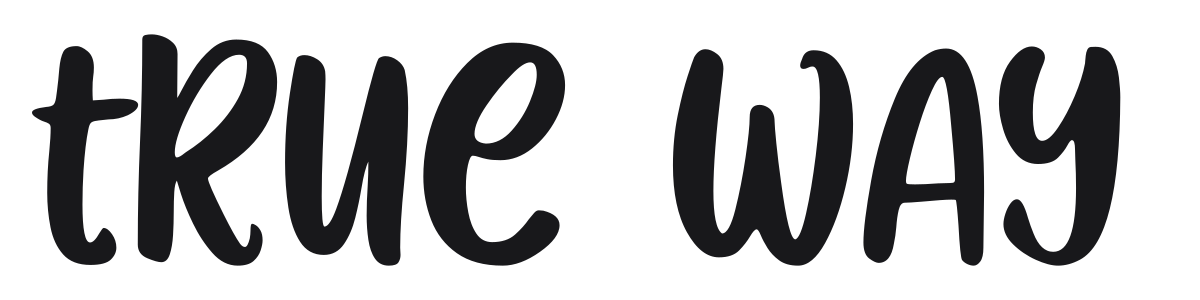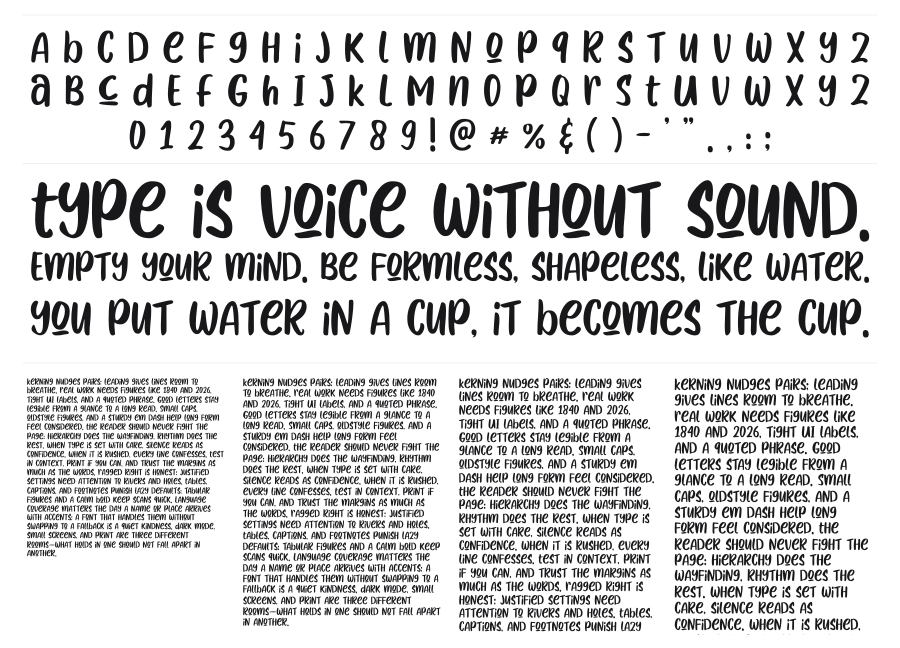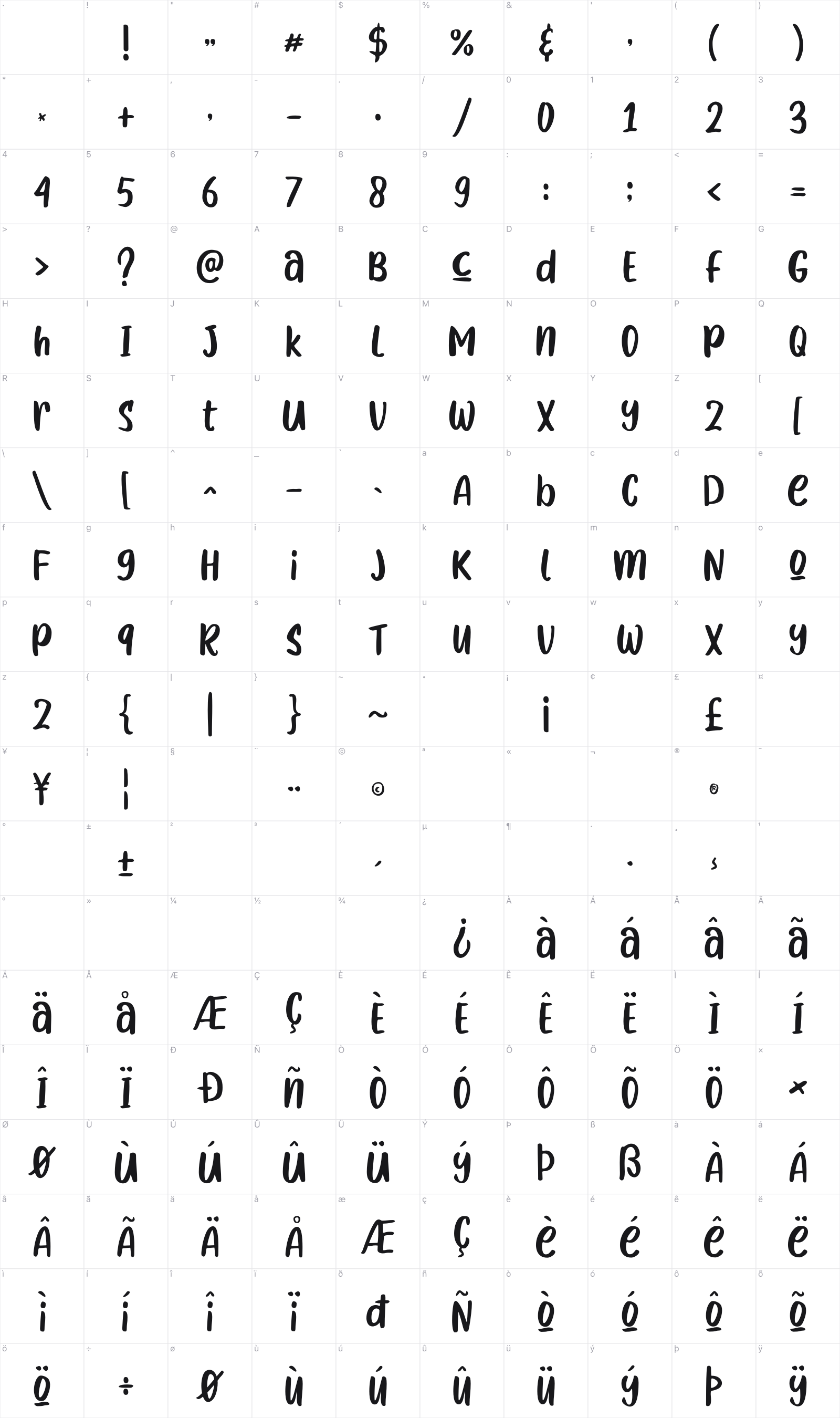
True Way
True Way is a bold casual script from Lettersiro with a hand-lettered, brush-written character. The thick rounded strokes and bouncy baseline give it an energetic friendliness without feeling forced. It works well at display sizes for branding, packaging, and anywhere a human touch matters.